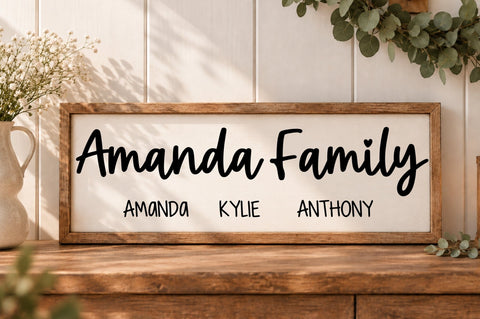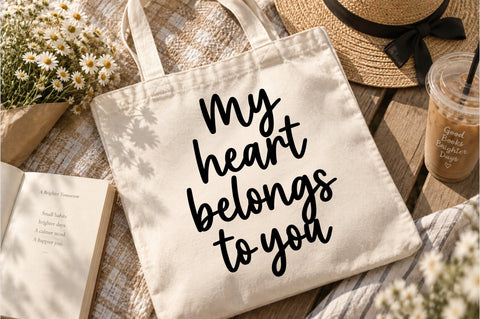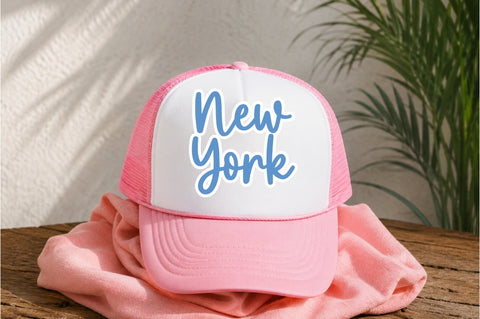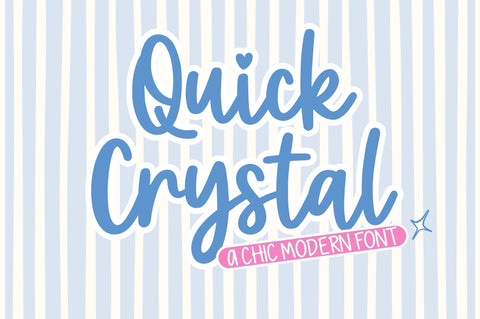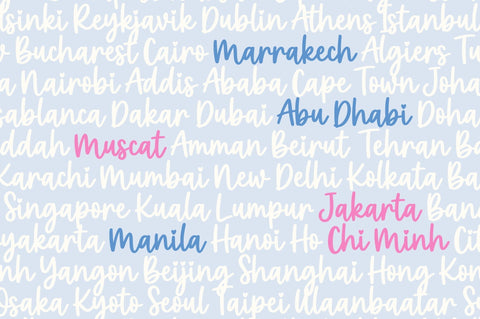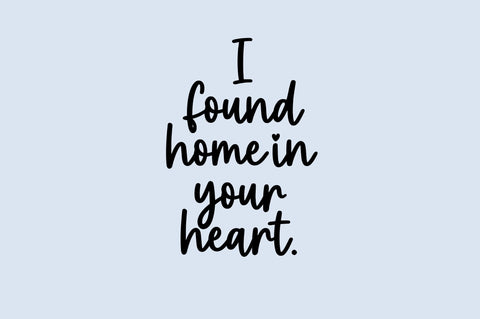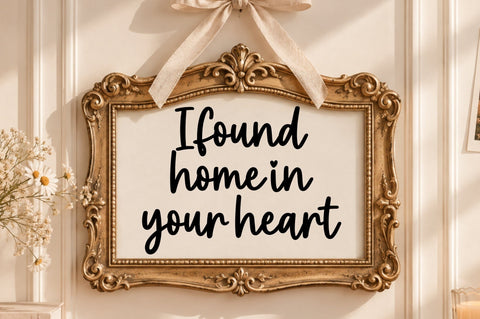
Quick Crystal
Quick Crystal is a charming handmade script font that combines a natural handwritten feel with a stylish, expressive personality. Its smooth flowing strokes, playful curves, and organic letterforms create a warm and authentic look, perfect for designs that need a handcrafted touch.
With its casual yet polished appearance, Quick Crystal works beautifully across both modern and creative projects. The font brings an effortless handwritten character that feels friendly, artistic, and versatile.
Quick Crystal is made to add personality to every word handmade, expressive, and effortlessly stylish.